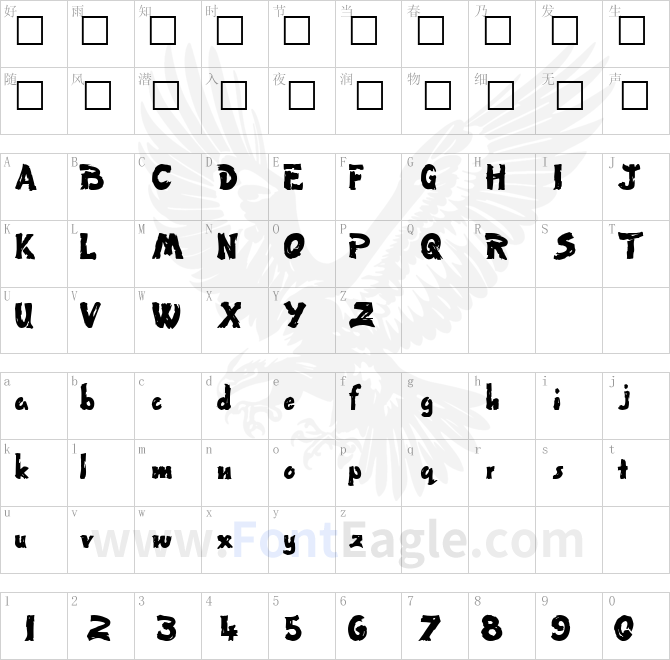
Arslannian is a great font, widely used in graphic design, single-page menu design, poster design and other fields, and is deeply loved by designers.Arslannian download.